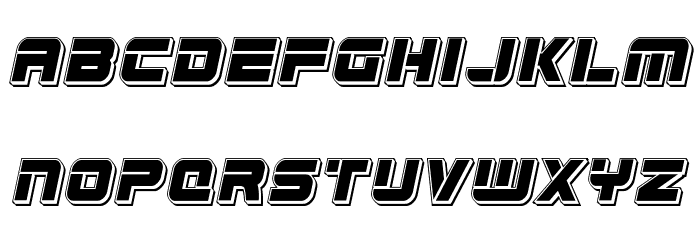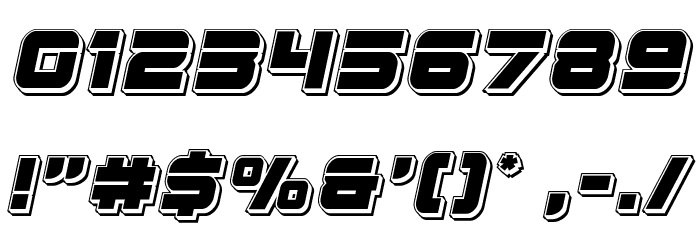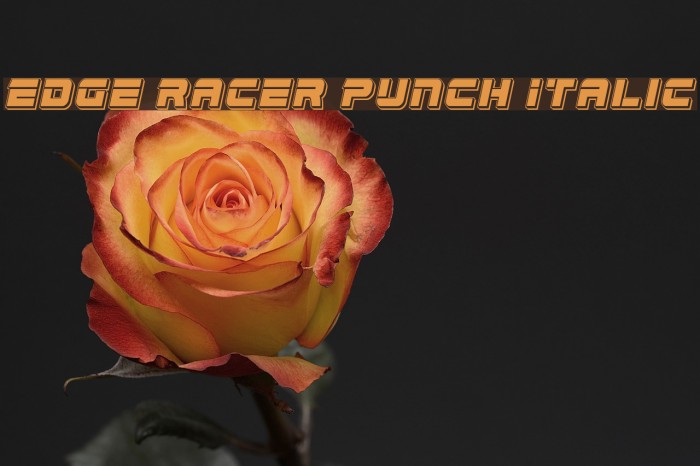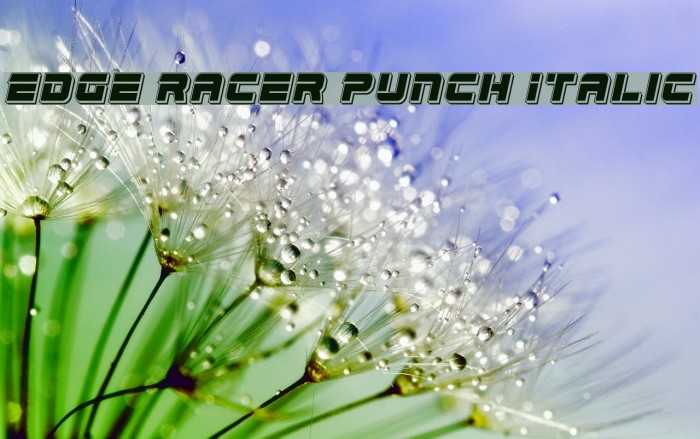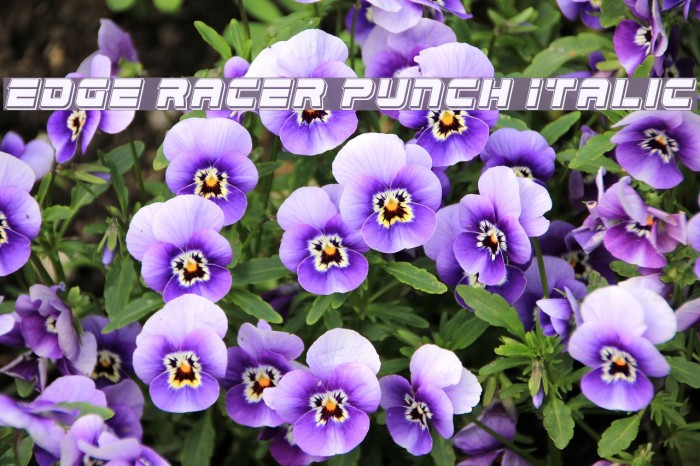
Edge Racer Punch Italic Font
This font features a bold, dynamic style with a futuristic and sporty aesthetic. The characters are designed with a strong geometric structure, incorporating sharp angles and a three-dimensional effect that gives them a sense of depth and motion. The italic slant adds to the impression of speed and agility, making it ideal for projects that require a sense of energy and forward movement. The uppercase and lowercase letters maintain a consistent style, while the numerals and special characters complement the overall design. The font's boldness and unique style make it stand out, perfect for eye-catching headlines and logos.
A bold, futuristic italic font with a sporty, dynamic style.
- Proposed Projects: Ideal for sports branding, automotive designs, video game titles, and dynamic posters.